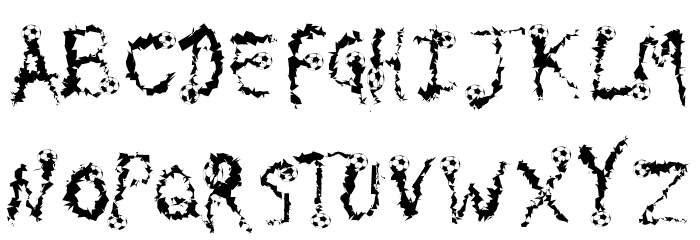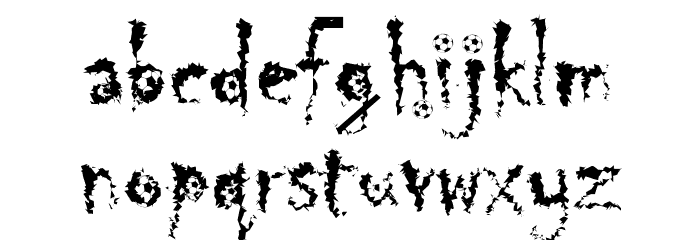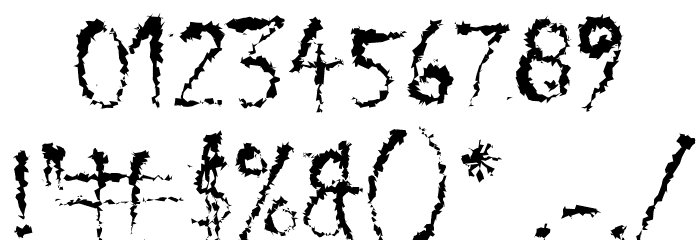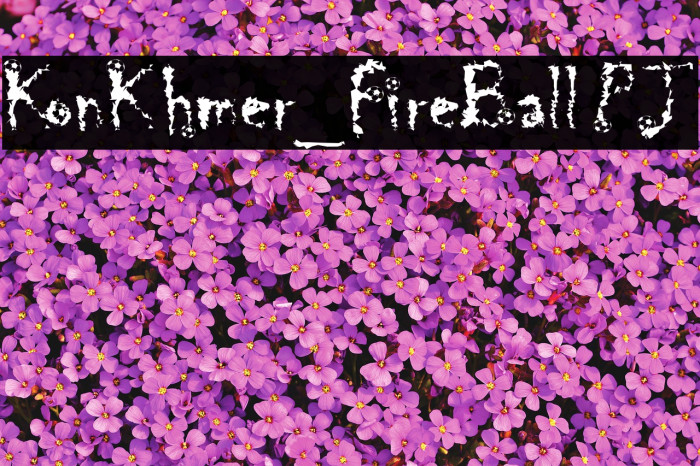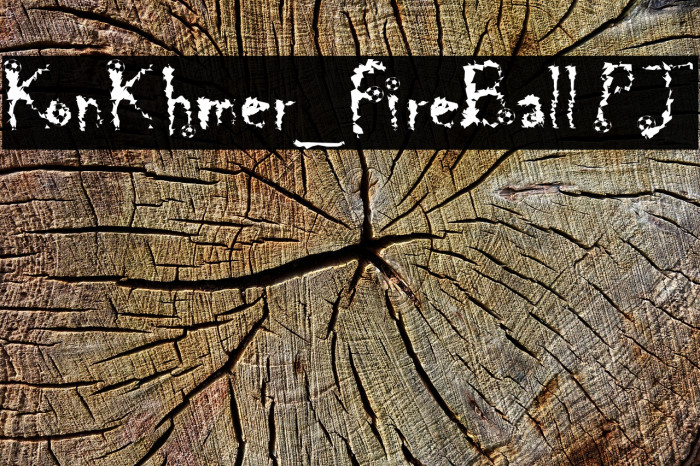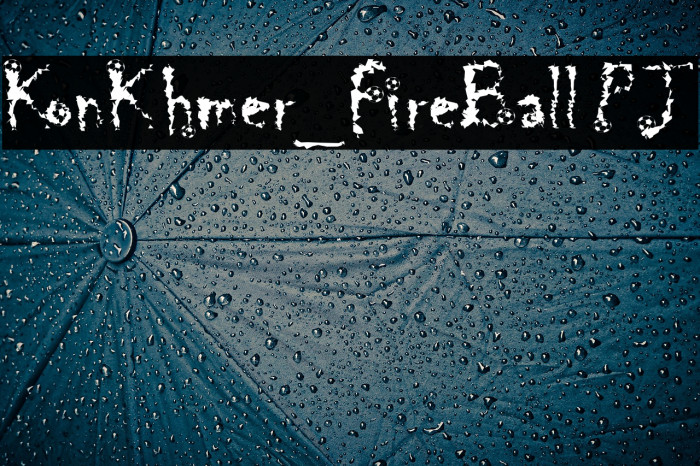
KonKhmer_FireBall PJ Font
This font features a highly decorative and chaotic style, reminiscent of flames or jagged edges. Each character is uniquely designed with irregular, sharp contours that give the impression of being engulfed in fire or smoke. The uppercase and lowercase letters maintain a consistent theme, with varying levels of distortion and embellishment. Numbers and special characters follow the same aesthetic, ensuring a cohesive look across all glyphs. The font's dynamic and energetic appearance makes it stand out, ideal for projects that require a bold and eye-catching design.
A fiery, chaotic decorative font with jagged, flame-like edges.